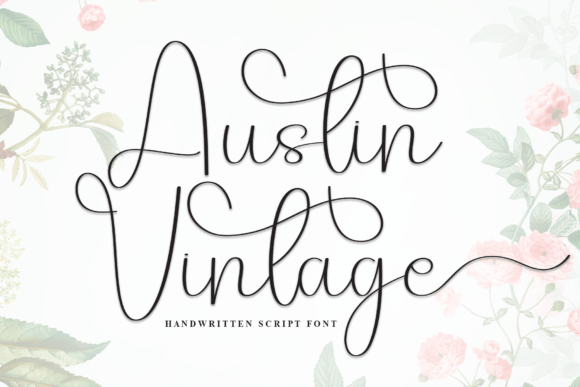
Austin Vintage Font: The Perfect Choice for Adding a Relaxed and Friendly Vibe to Your Designs
In the world of typography, fonts play a crucial role in conveying the tone and personality of a brand or design. When it comes to creating a relaxed and friendly vibe, the right font can make all the difference. This is where the Austin Vintage Font comes in – a casual handwritten font that captures the essence of a carefree and charming style. In this article, we’ll dive into the world of Austin Vintage Font, exploring its features, benefits, and uses, as well as provide tips on how to make the most of this beautiful font.
What is Austin Vintage Font?
Austin Vintage Font is a casual handwritten font that is designed to bring a relaxed and friendly vibe to any design. With its natural, flowing strokes, this font is perfect for creating a sense of warmth and authenticity. The font’s effortless style makes it ideal for personal projects, social media, and invitations, where a touch of personality and charm is desired.
One of the standout features of Austin Vintage Font is its unique, hand-crafted look. Each letter is carefully designed to resemble handwritten script, giving the font a personal and human touch. The font’s casual style is reminiscent of a bygone era, evoking memories of lazy summer days and carefree nights.
Benefits of Using Austin Vintage Font
So, why choose Austin Vintage Font for your design projects? Here are just a few benefits of using this beautiful font:
- Relaxed and Friendly Vibe: Austin Vintage Font is designed to create a relaxed and friendly vibe, making it perfect for designs that require a personal touch.
- Effortless Style: The font’s effortless style adds warmth and authenticity to any design, making it ideal for personal projects, social media, and invitations.
- Versatile: Austin Vintage Font is a versatile font that can be used in a variety of design projects, from digital media to print materials.
- Easy to Read: The font is easy to read, even at small sizes, making it perfect for body text and captions.
Uses of Austin Vintage Font
Austin Vintage Font is a versatile font that can be used in a variety of design projects. Here are some ideas to get you started:
- Personal Projects: Use Austin Vintage Font to add a personal touch to your personal projects, such as photo albums, scrapbooking, and journaling.
- Social Media: The font is perfect for social media graphics, such as Instagram posts, Facebook updates, and Twitter headers.
- Invitations: Austin Vintage Font is ideal for creating invitations for special occasions, such as weddings, birthday parties, and baby showers.
- Branding: Use the font to create a unique and recognizable brand identity for your business or personal brand.
Tips for Using Austin Vintage Font
Here are some tips for using Austin Vintage Font to get the most out of this beautiful font:
- Pair with Other Fonts: Experiment with pairing Austin Vintage Font with other fonts to create a unique and interesting contrast.
- Use in Combination with Images: The font looks great in combination with images, so try using it to add text to your photos and illustrations.
- Experiment with Colors: Don’t be afraid to experiment with different colors and textures to add depth and interest to your designs.
- Keep it Simple: Remember, sometimes less is more. Keep your design simple and clean to let the font shine.
Font Pairing Suggestions
Font pairing is an art that can elevate your designs to the next level. Here are some font pairing suggestions for Austin Vintage Font:
- Open Sans: A clean and modern sans-serif font that pairs well with the casual style of Austin Vintage Font.
- Lato: A sleek and elegant sans-serif font that adds a touch of sophistication to your designs.
- Merriweather: A classic serif font that pairs well with the vintage feel of Austin Vintage Font.
In conclusion, Austin Vintage Font is a beautiful and versatile font that can add a relaxed and friendly vibe to any design. With its natural, flowing strokes and effortless style, this font is perfect for personal projects, social media, and invitations. Whether you’re a designer, blogger, or simply a DIY enthusiast, Austin Vintage Font is a great choice for anyone looking to add a touch of personality and charm to their designs.